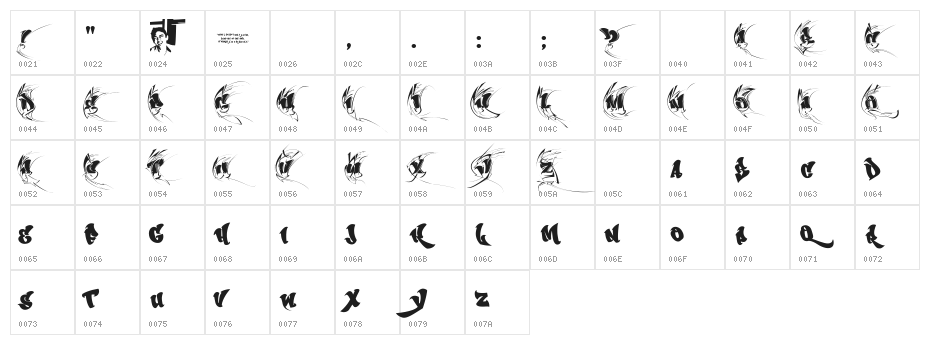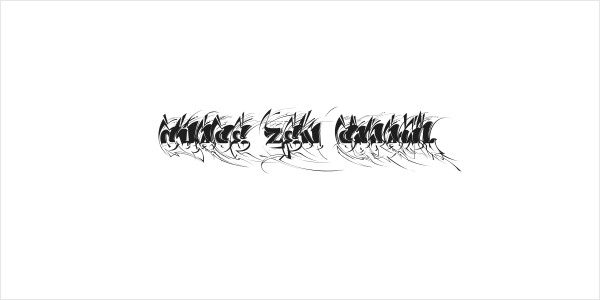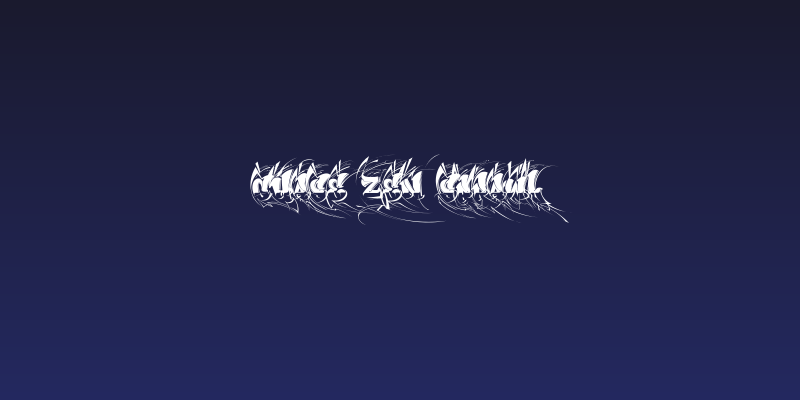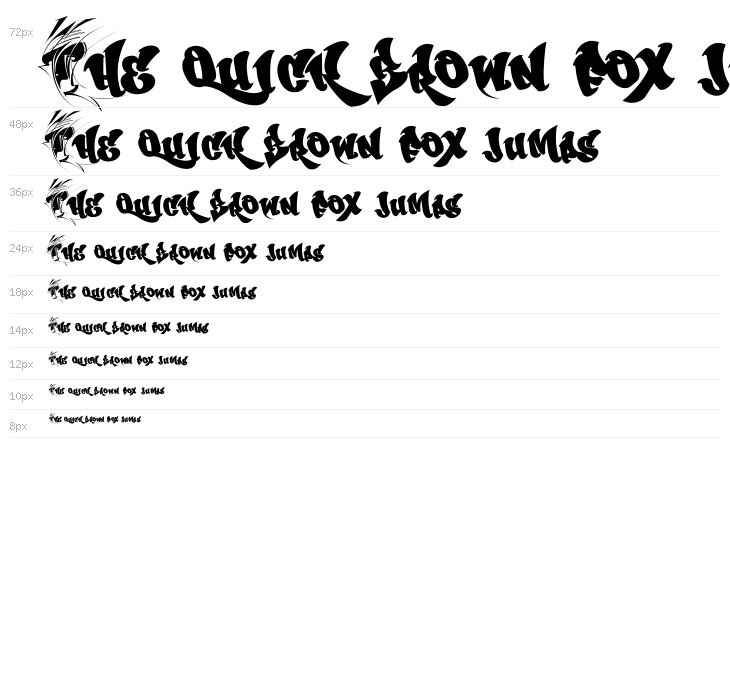
CHASE ZEN SPRAWL Font
CHASE ZEN SPRAWL Description
This font is a bold and expressive display typeface with a strong graffiti influence. The letters are characterized by sharp, angular strokes and a dynamic, flowing style that mimics the energy of street art. The uppercase and lowercase letters maintain a consistent style, with exaggerated curves and pointed edges that create a sense of movement. The numbers and special characters follow the same aesthetic, ensuring a cohesive look across all glyphs. This font is designed to stand out and make a statement, perfect for projects that require a bold and artistic touch.
| Proposed Projects | Ideal for street art designs, urban-themed posters, album covers, and edgy branding projects. |